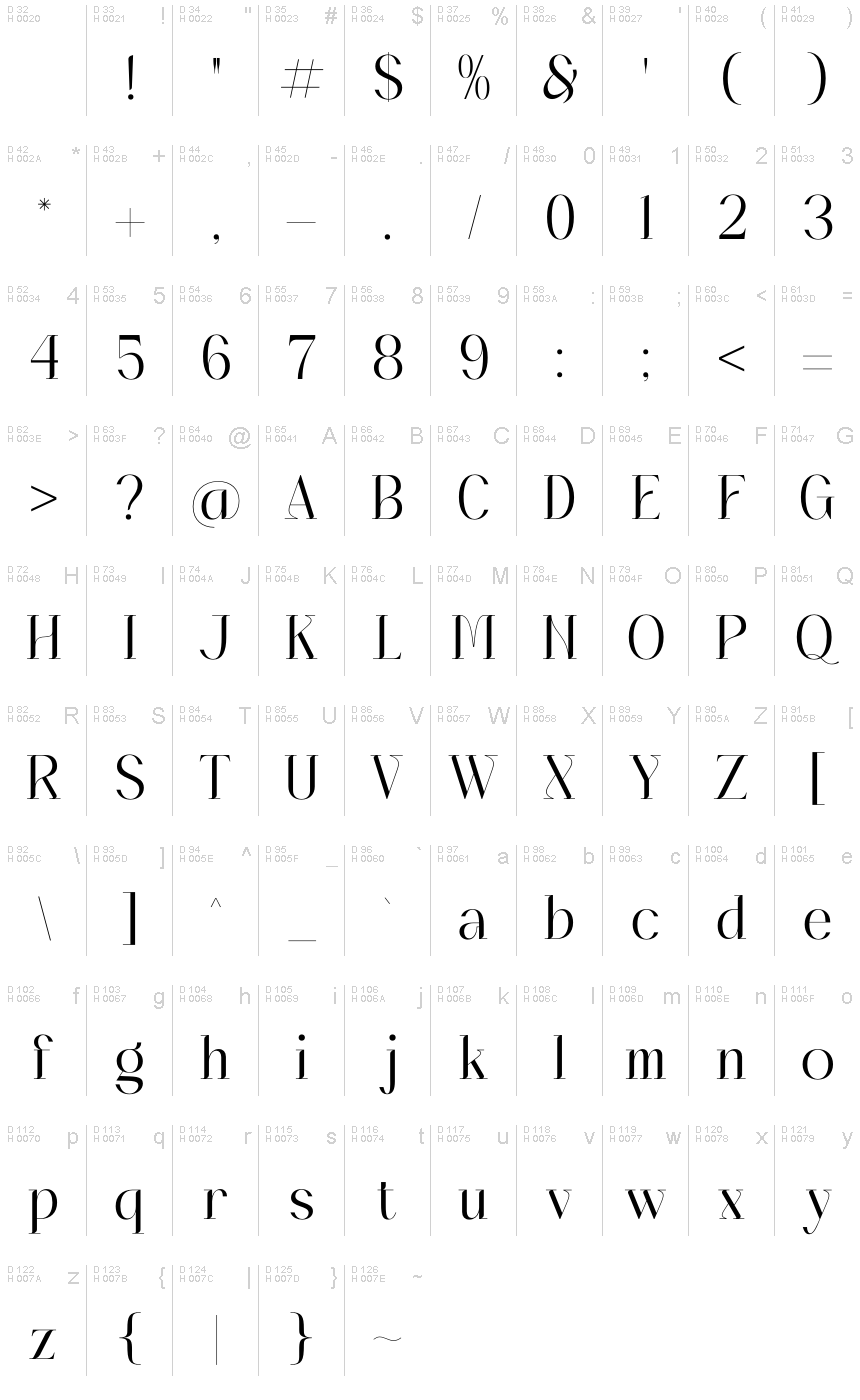
BALORUNE
Balorune font, designed by Storytype Studio, embodies a captivating retro serif style that merges nostalgia with modern elegance. Its distinctively bold presence commands attention, featuring elongated ascenders and gracefully rounded terminals that create a harmonious balance between playfulness and sophistication.
Visually striking, Balorune's robust form radiates warmth while maintaining readability. The font's lightness in certain elements contrasts beautifully with its pronounced features, allowing it to stand out in any design context.
Ideal for branding campaigns, vintage-inspired posters, or elegant editorial layouts, Balorune effortlessly transitions across various applications where personality and flair are paramount. This font invites creativity, making it a versatile choice for designers seeking to leave a lasting impression through their work.